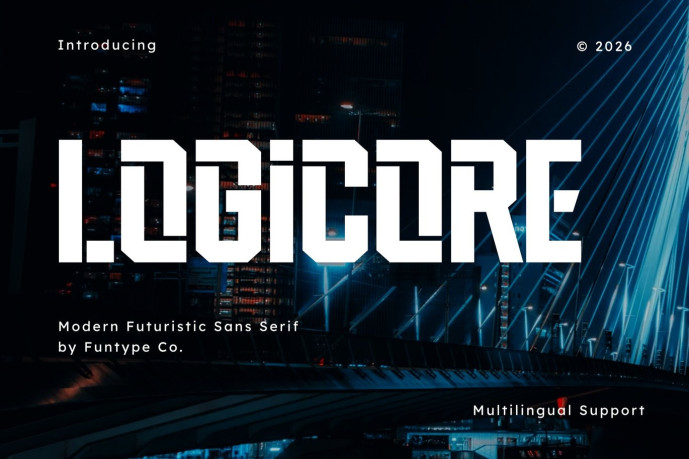
Logicore – Modern Futuristic Sans Serif Font
Logicore is a bold, high-impact, and modern futuristic sans serif font, engineered to bring an authoritative mechanical presence, rigid geometric weight, and sharp cybernetic aesthetic to contemporary display layouts. Featuring a bold modular block profile, distinct octagonal chamfered cuts, and precision technical inner notches, Logicore introduces a premium high-tech editorial, artificial intelligence, robotics, and prominent digital media identity designed to claim absolute visual focus.
This font family is the ultimate choice for creative directors, digital gaming publishers, and agency brand designers looking to implement a robust typography identity for major text hierarchies. Whether you are developing bold corporate enterprise logotypes, science fiction book layouts, tech-lifestyle branding, cinematic movie title sequences, esports presentation headers, or prominent digital web banners, Logicore stands out with supreme legibility and structural confidence.
Main Features:
Modern Futuristic Sans Structure: Optimized with a solid modular grid alignment and heavy footprint for high-impact title compositions.
Precision Mechanical Geometry: Bold block lines with distinct diagonal chamfered corners crafted to secure instant audience attention.
Multilingual Support: Fully loaded and prepared for cross-platform international marketing campaigns.
Premium Cybernetic Aesthetic: Clean linear strokes balanced with futuristic technical contours, perfect for cutting-edge corporate identities and digital gaming media networks.
Best Used For: High-end tech editorial layout design, futuristic lifestyle branding, corporate presentation titles, cinematic sci-fi title sequences, AI and robotics firm marketing materials, gaming stream overlays, cybersecurity branding, and prominent online media splash banners.